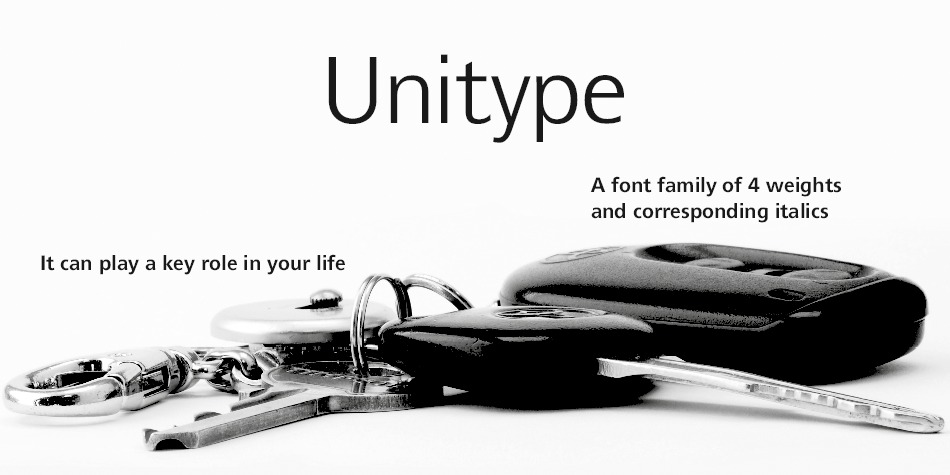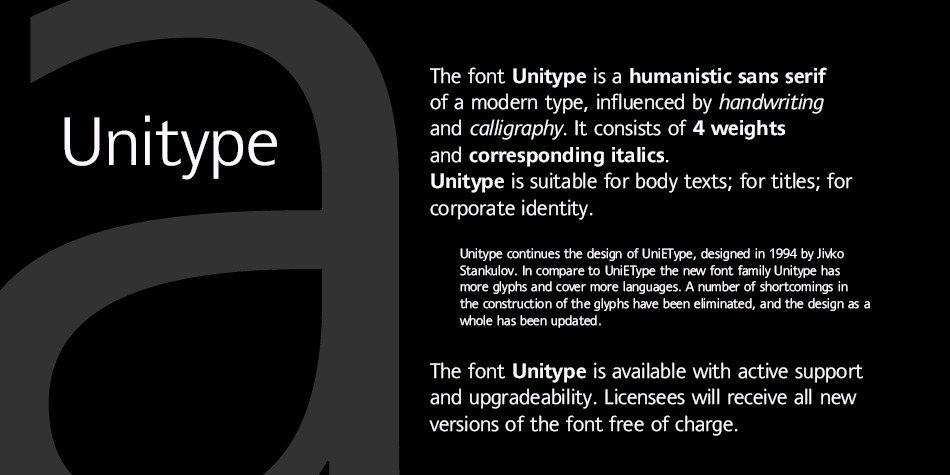
Unitype Sans Serif Font
This is a contemporary interpretation of the classic sans serif model born in the early 19th century that flirts with a humanist spirit, becoming a cozy grotesque full of personality and functionality. It consists of 4 weights and corresponding italics. Unitype is suitable for body texts; for titles; for corporate identity.
Unitype continues the design of UniEType, designed in 1994 by Jivko Stankulov. In compare to UniEType the new font family Unitype has more glyphs and cover more languages. A number of shortcomings in the construction of the glyphs have been eliminated, and the design as a whole has been updated.